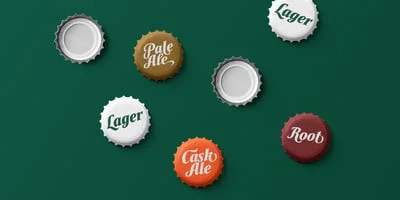
Hopfen Font is ideal for brewing design projects including craft brewery branding, beer festival promotions, hop farm materials, microbrewery signage, brewing equipment catalogs, beer tasting event graphics, brewery tour promotions, and artisanal beverage campaigns. This authentic typeface works perfectly for beer gardens, brewing supply companies, hop cultivation businesses, brewery restaurants, and projects that celebrate the artisanal craft of beer making and agricultural brewing traditions.
What makes Hopfen Font exciting is its authentic brewing character that perfectly captures the essence of craft beer culture and agricultural heritage. The font features organic letterforms with hop-inspired flourishes that reflect the natural beauty and traditional craftsmanship of beer brewing. Its earthy design elements embody the spirit of agricultural authenticity and artisanal quality, making it perfect for projects that need to convey tradition, craftsmanship, and connection to brewing heritage. The carefully crafted hop-like details create an atmosphere of rustic authenticity and brewing excellence.
Hopfen Font comes in multiple family variations including craft, traditional, rustic, and premium styles. Each weight maintains the distinctive brewing character while offering different levels of artisanal intensity and hop-house presence. The font family includes brewery alternates, hop ligatures, and craft variations that provide designers with comprehensive options for creating truly authentic and brewing-inspired typographic compositions that celebrate beer culture and agricultural tradition.
Whether you're designing brewery branding, creating craft beer marketing materials, or developing brewing promotional graphics, Hopfen Font provides the perfect typographic foundation for projects that celebrate brewing excellence and hop culture. This remarkable typeface transforms ordinary text into compelling expressions of craft brewing passion and agricultural authenticity. Download this excellent font today and brew your design projects with the artisanal character and brewing tradition that captures the heart of craft beer culture and hop-growing heritage.